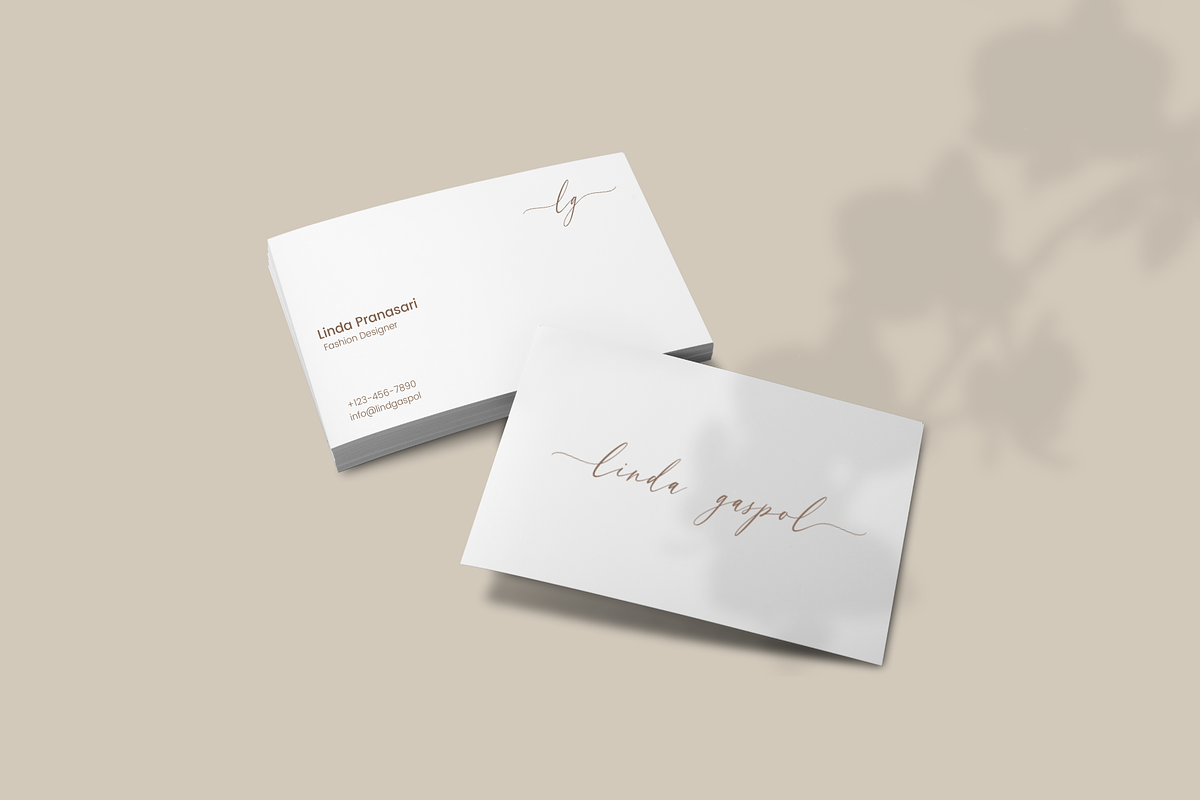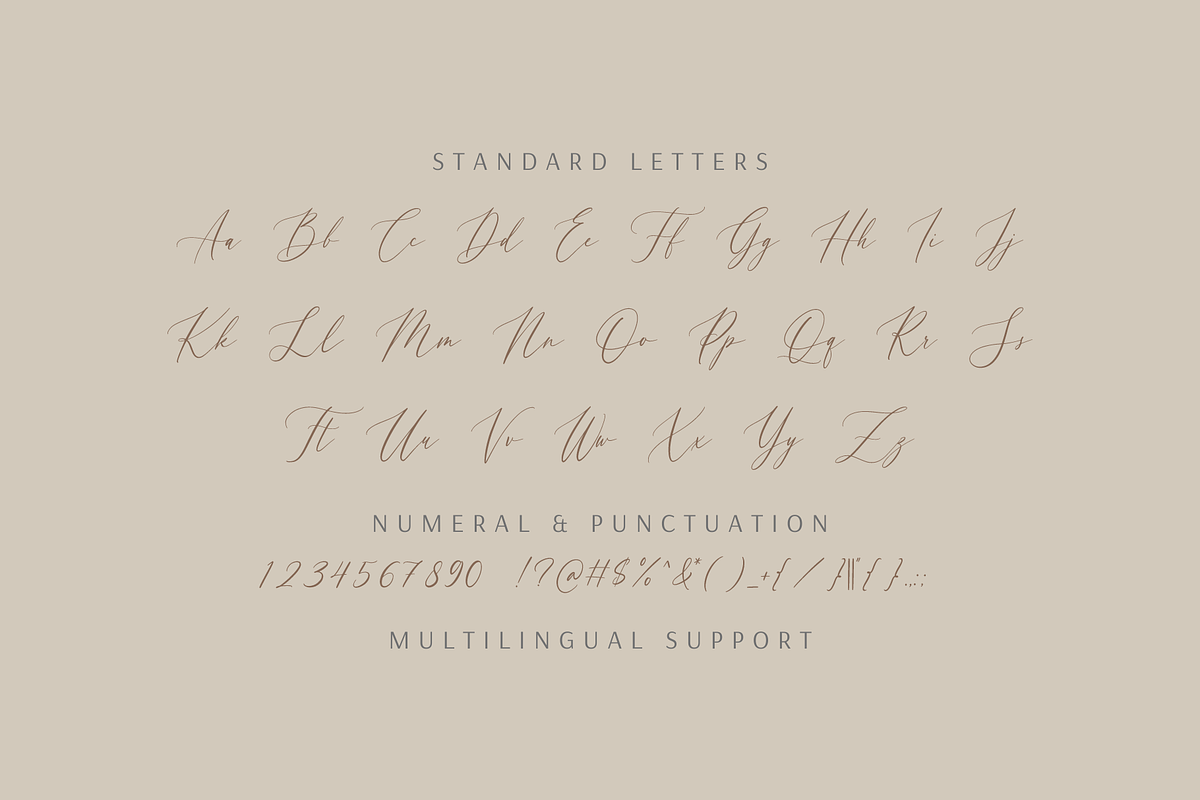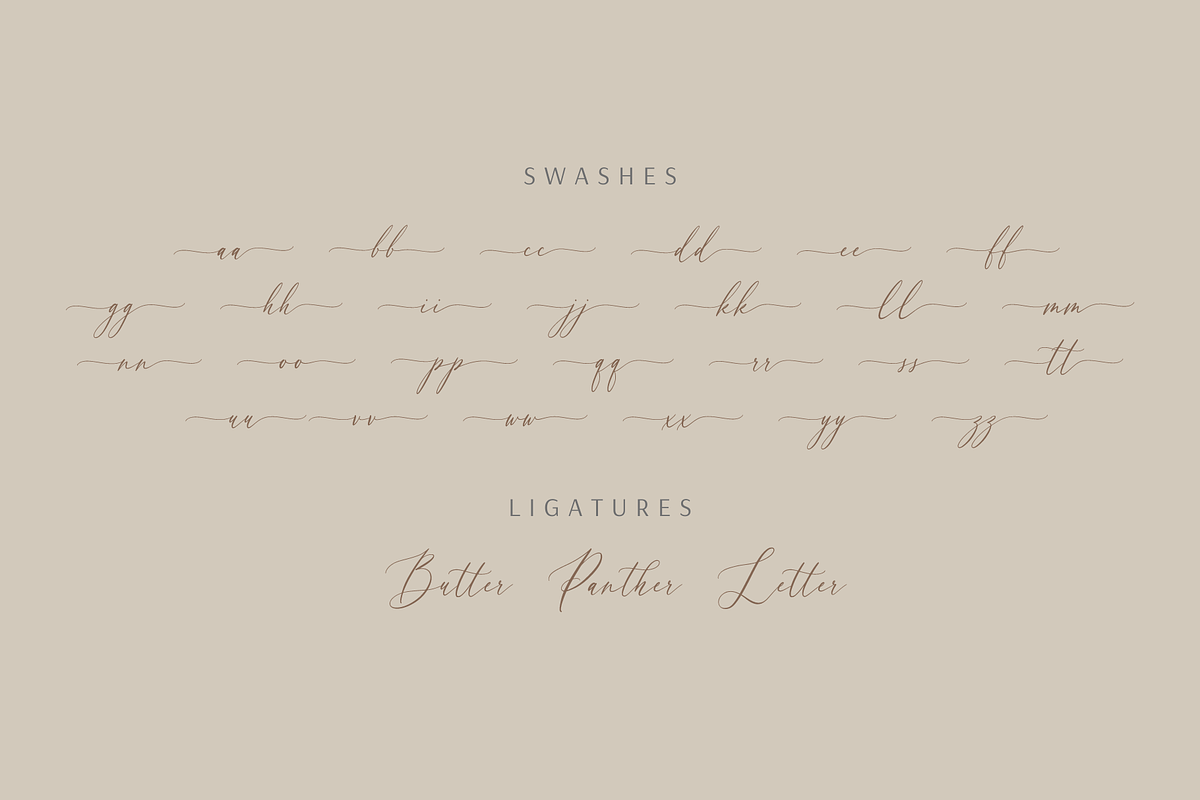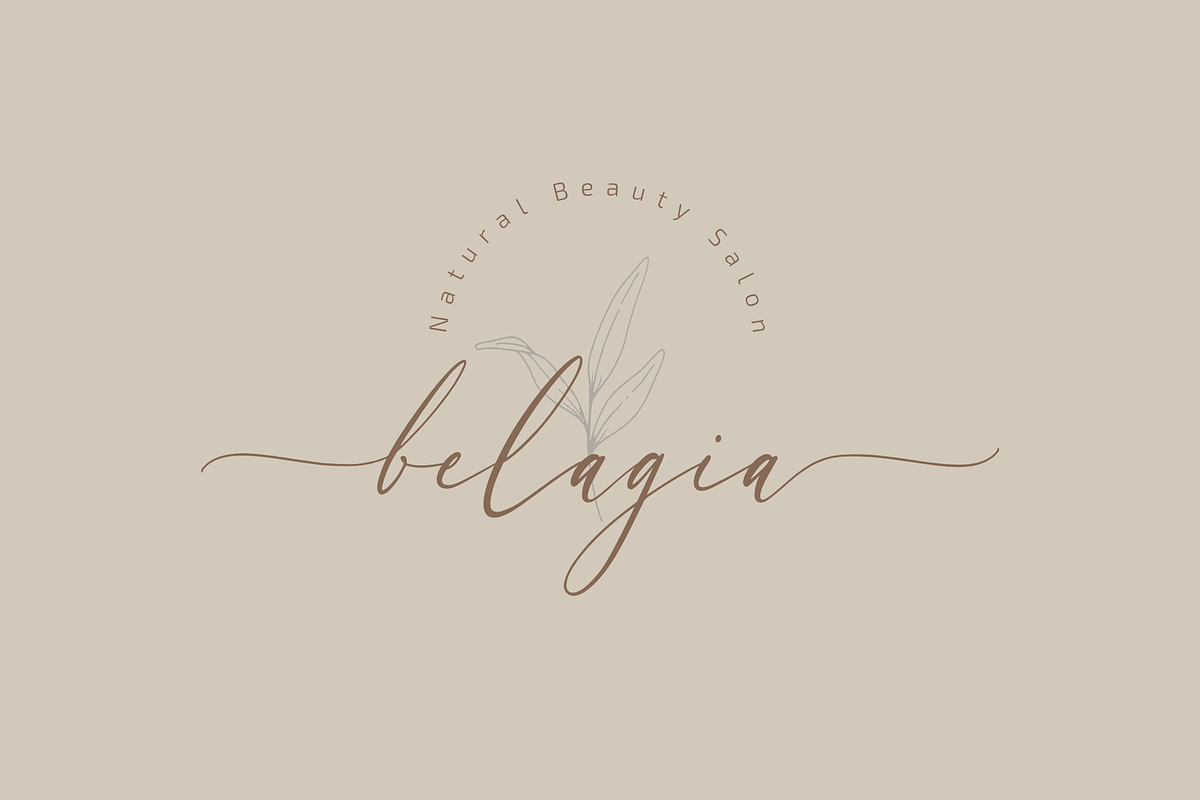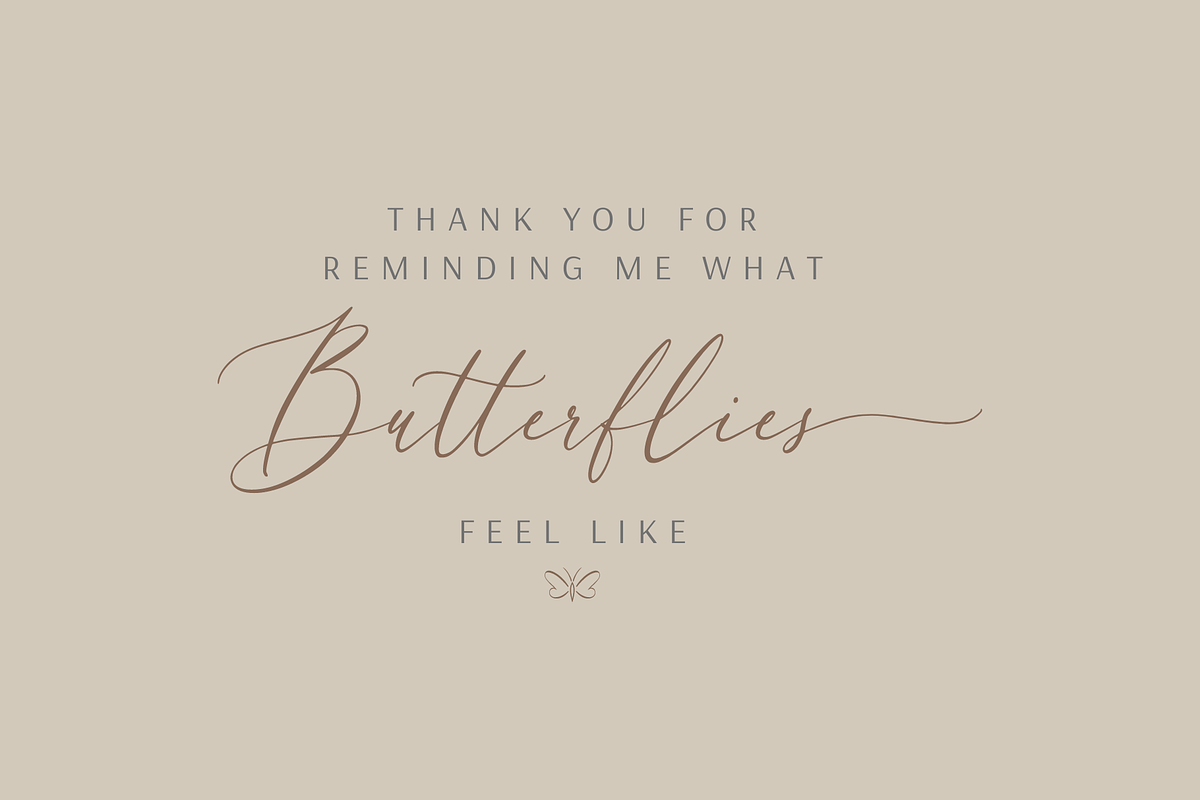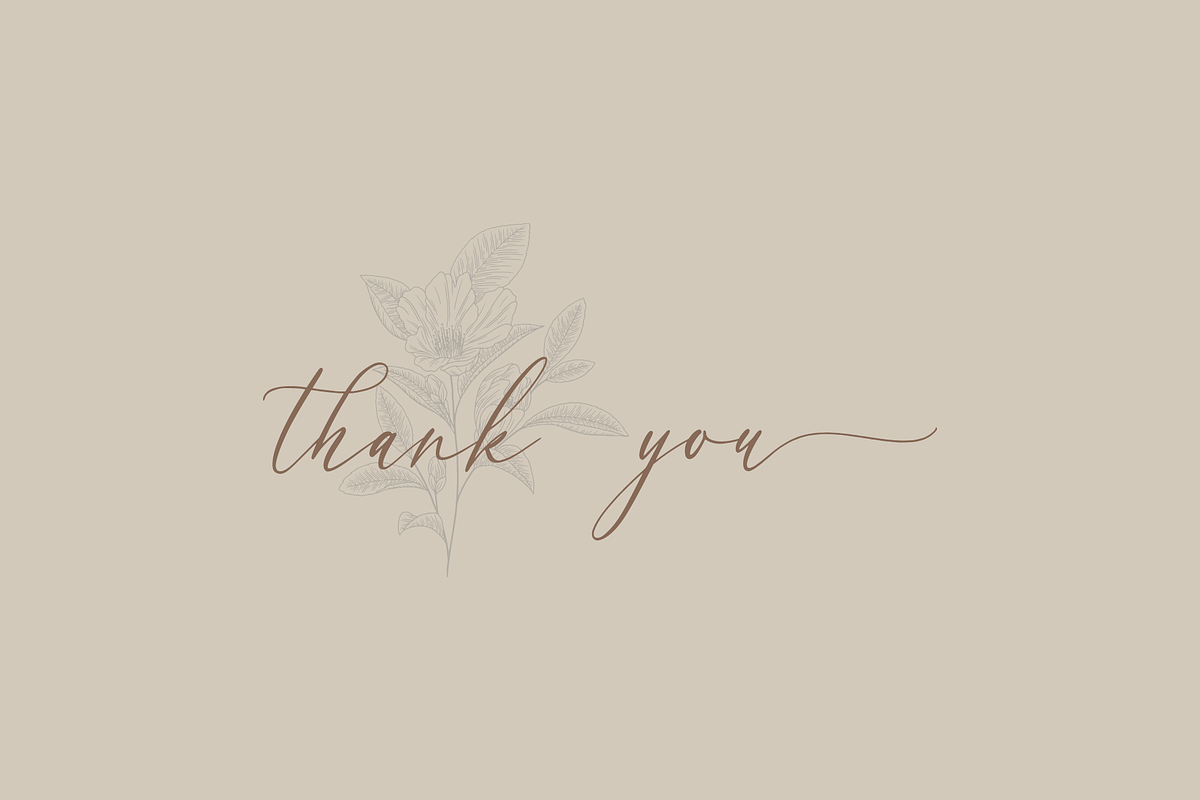
Begthen - Classy Calligraphy
Begthen is a Beautiful script font carefully created with a touch of romantic. This is a beautiful combination of timeless elegance and authentic calligraphy, It has lowercase beginning and ending swashes.
Features : lowercase beginning and ending swashes.